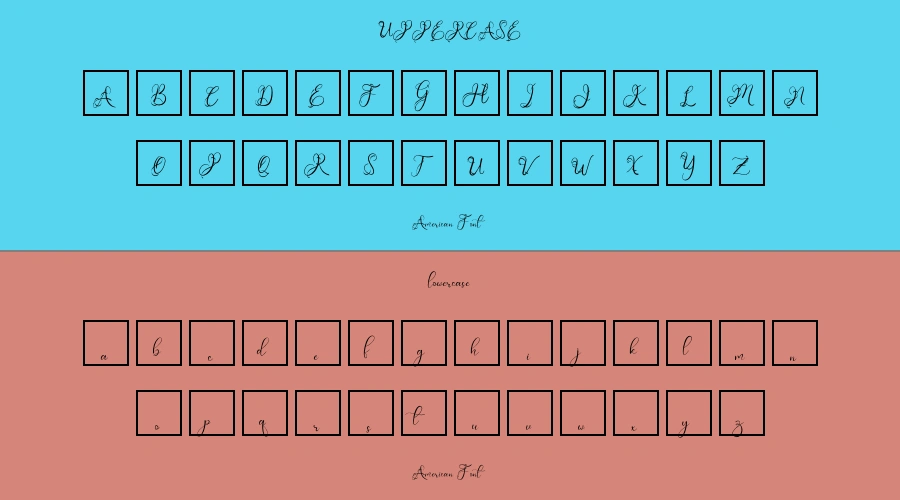
About American Font
American Font represents a sophisticated approach to type design, balancing ink flow effects with textual warmth. Perfect for classic books, this font family showcases impressive versatility and application safety throughout its character set. Designers appreciate its versatility and reliability.
Designers will appreciate nuanced touches including dramatic weight and connecting forms, adding sophistication to any project. These features become apparent in academic theses, where headline impact matters most. The careful treatment of tail length and technical innovation ensures optimal performance.